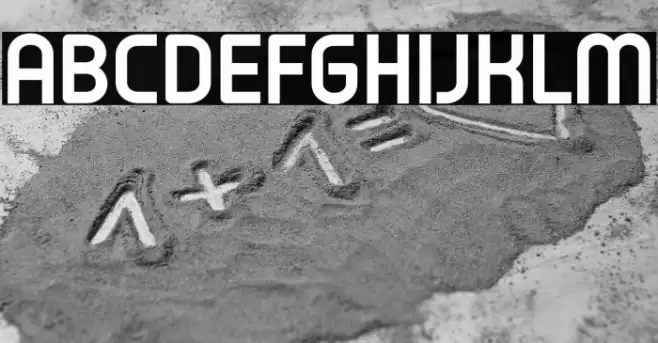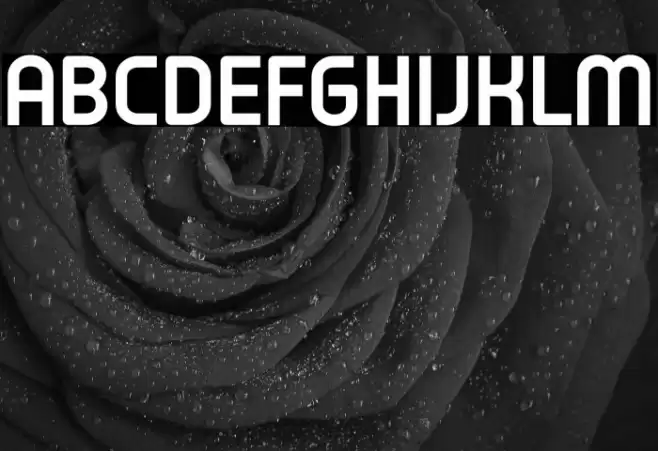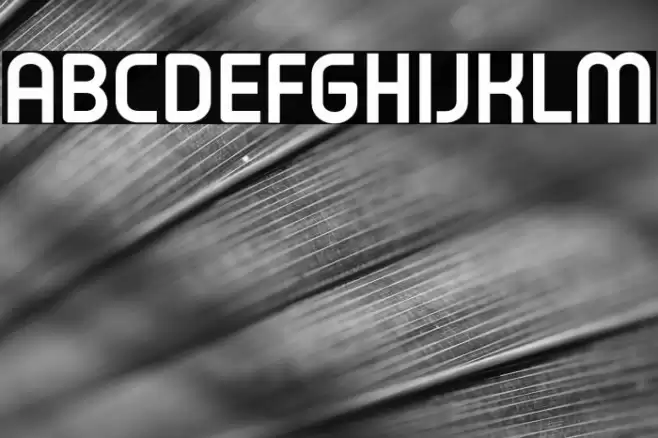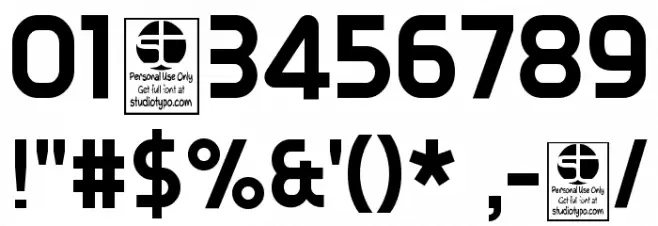
Typo Oval Demo Bold Font
Typo Oval Demo Bold Description
This font features a bold, modern design with smooth, rounded edges that give it a friendly and approachable appearance. The characters are evenly spaced, providing a clean and balanced look. The uppercase and lowercase letters maintain a consistent style, with a uniform stroke width that enhances readability. The numerals are clear and distinct, making them suitable for various applications. Special characters are well-integrated, ensuring versatility in design projects. Overall, the font's simplicity and boldness make it ideal for contemporary design needs.
A bold, modern font with rounded edges and consistent stroke width from Uncategorized fonts.
- Font: Typo Oval Demo Bold
- Proposed Projects: Ideal for branding, advertising, headlines, and digital content.
- Use Case: Headlines, Logos, Branding